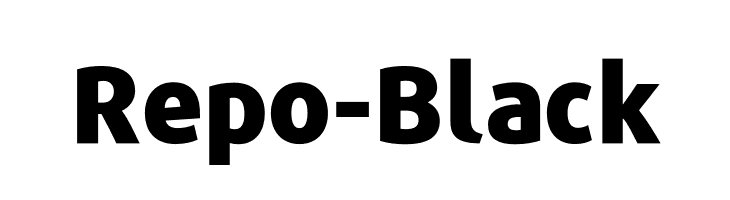
A modern, geometric font with sleek lines and sharp angles.
Schriftart von HammerBro101. For commercial use please contact the owner.
( Fonts by www.studiotypo.com - Personal-use only. For commercial use please contact owner. )
A bold, rounded font with a playful and approachable style.
( Copyright (c) 2016 The Muli Project Authors (contact@sansoxygen.com) )
A modern, italicized sans-serif font with medium weight and normal spacing.
( Copyright (c) 2015, Cadson Demak (info@cadsondemak.com) )
A refined serif font with thin strokes and elegant proportions.
( Fonts by Levi Szekeres )